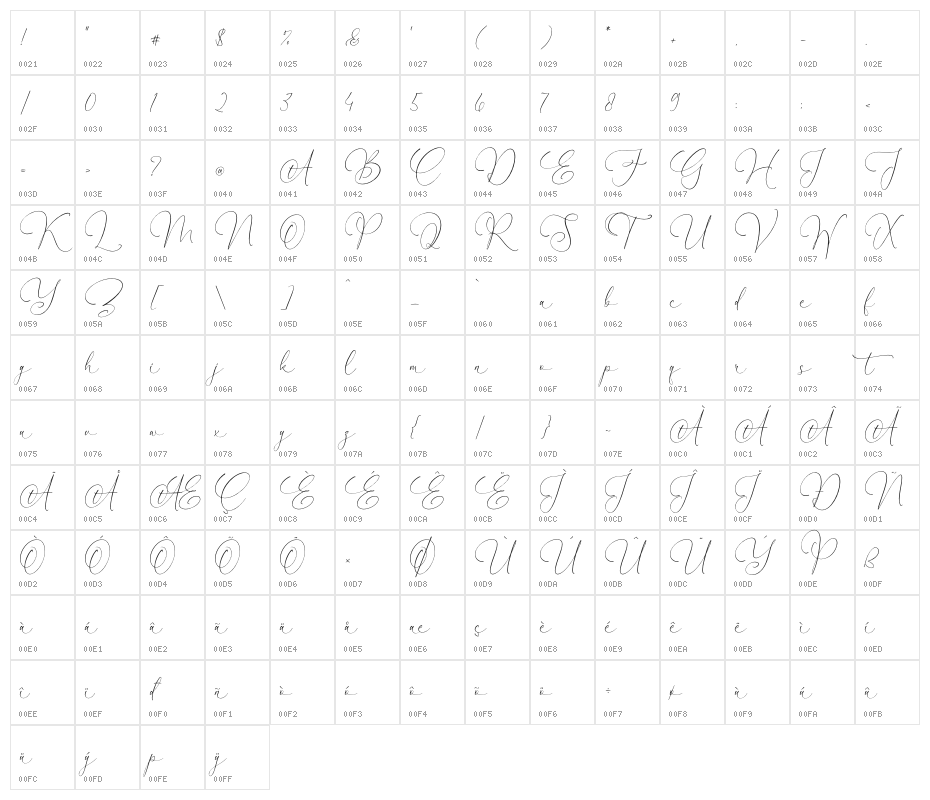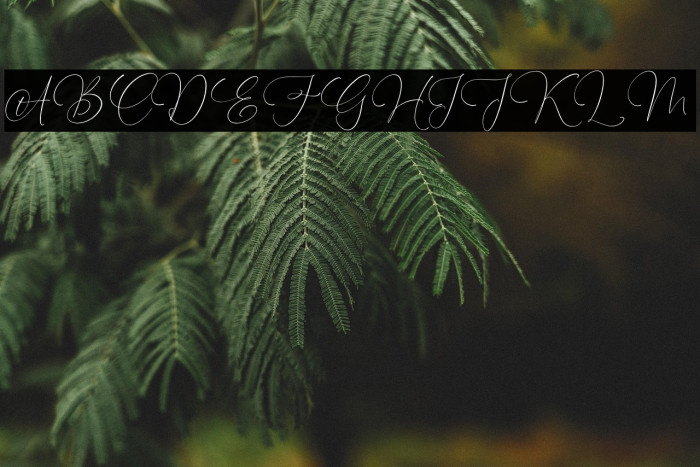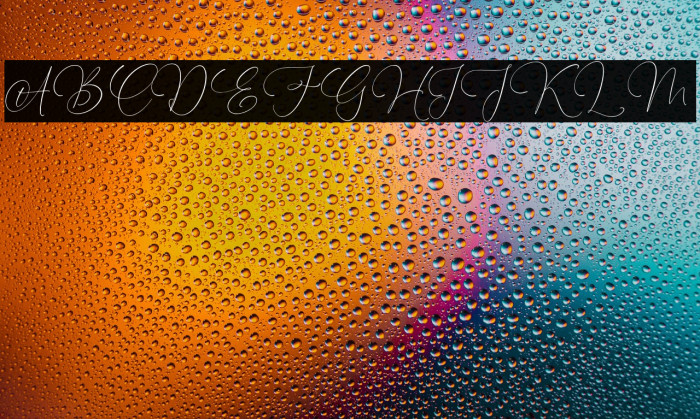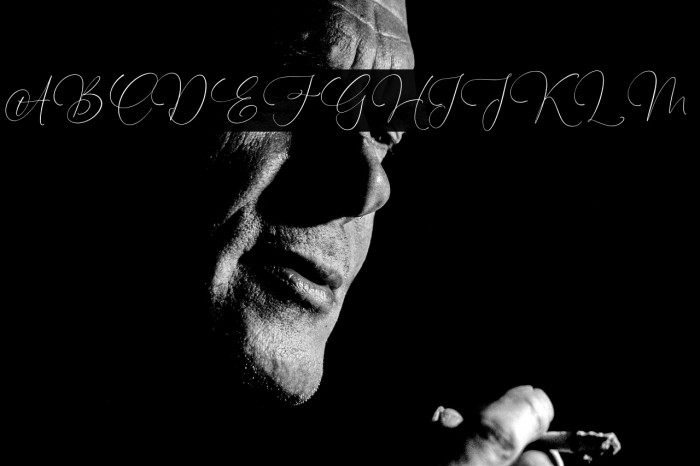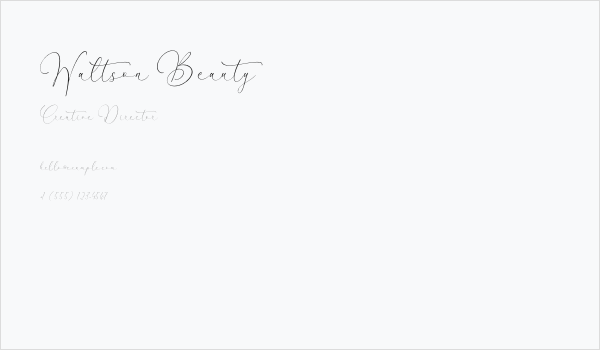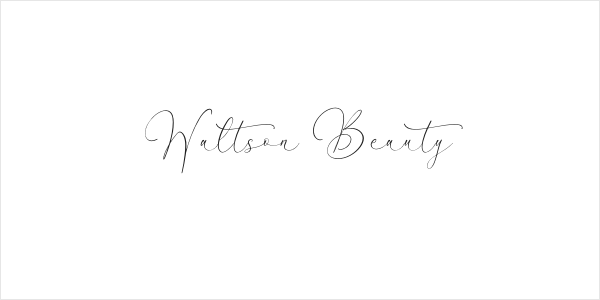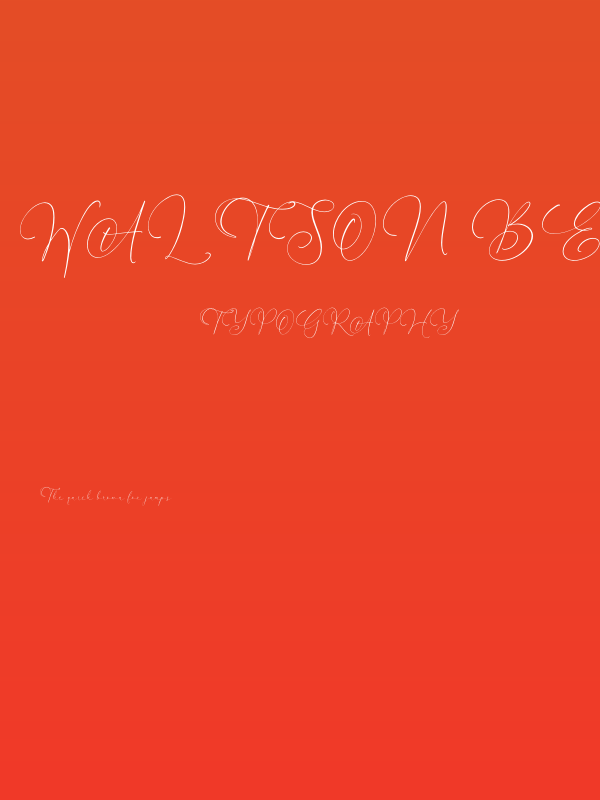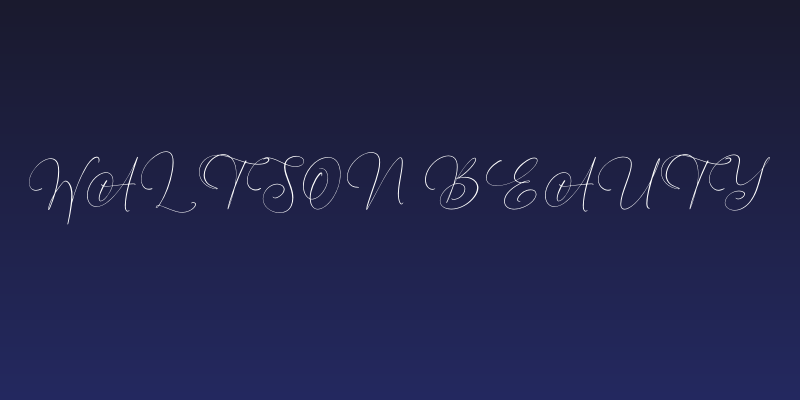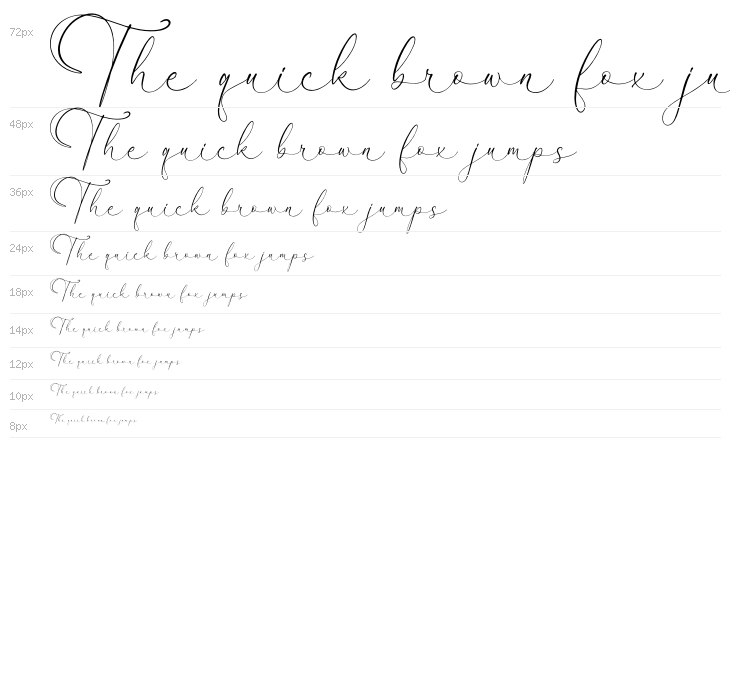
Waltson Beauty Font
Waltson Beauty Description
Elegant and flowing script font with delicate curves and a handwritten style.
| Proposed Projects | Wedding invitations, greeting cards, elegant branding. |